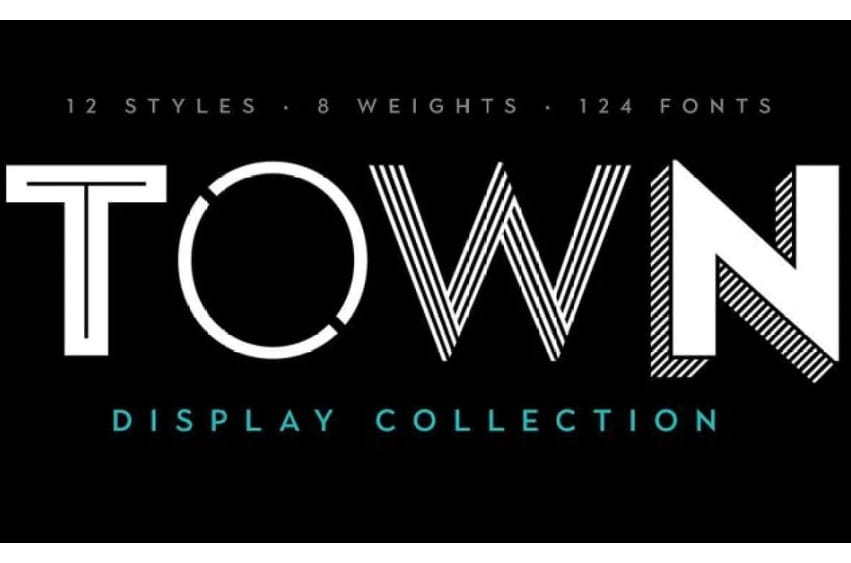
Town Font is an elegant font collection of modern art deco and Lettering, designed with timeless appeal, contemporary in proportion, style, and detail. The set of fonts has been created for the creation of distinctive brand logos, luxurious alcohol brand logos or labels, menu types in restaurants, attractive web page designs or magazine layouts There are eight of base fonts for the basic type weight and nine special decorative type faces in various weights. When two or more fonts are constructed from the similar basis they can be interchanged and blended; the styles of displaying and ornamentation blend and compliment each other for an integral like appearance.
Inline styles can therefore be used in combination with a few other styles and can provide subtle shadows or even make an especially bright headline. In our collection, you also can find two accent font sets and text weights with corresponding fonts and italics.